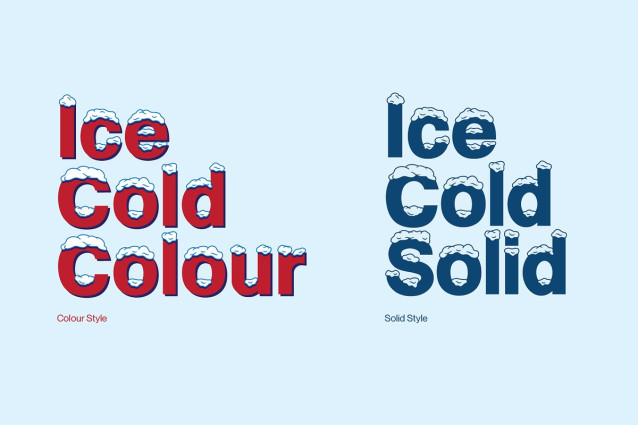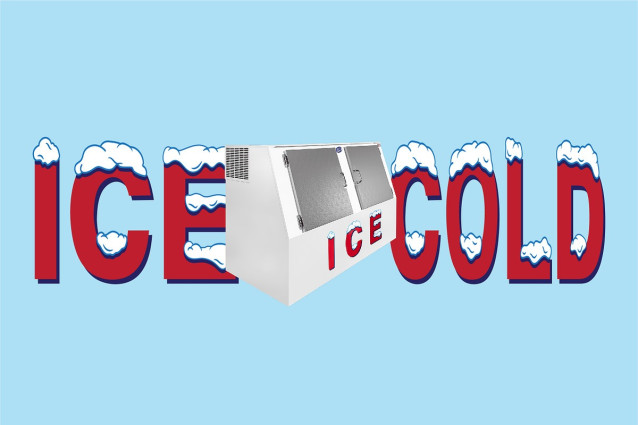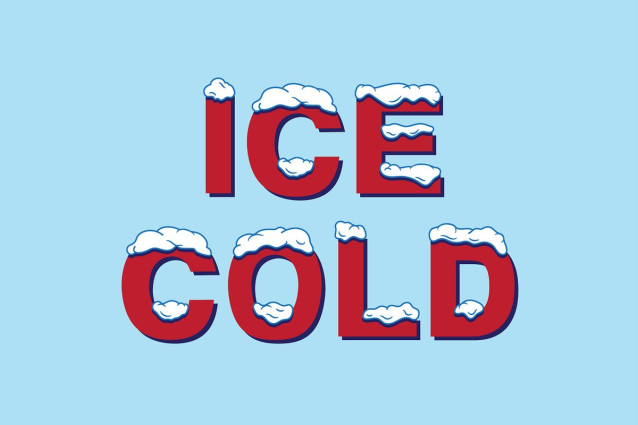
Ice Cold LH Font
Ice Cold LH Font a complete lowercase letter set, new symbols, improved spacing, and accented letterforms in both upper and lowercase!What’s cooler than being cool? Ice Cold! Experience the vintage charm and modern design of a timeless font that we’ve all seen before. Ice Cold is inspired by the classic lettering found on convenience store and gas station ice machines made by Leer that can be found around North America. Each character showcases a one-of-a-kind snow cap design to make your designs and sentences as unique as a snow angel.
Ice Cold Typeface offers versatility in every stroke. Whether you opt for the full colour or solid style, this font adds a touch of vintage and winter elegance to your projects. As demand grows, I’m committed to expanding its character set. Built on a handmade foundation influenced by Helvetica—affectionately dubbed Howlvetica. Dive into the frosty world of Ice Cold, where the magic of vintage aesthetics meets the precision of modern design.